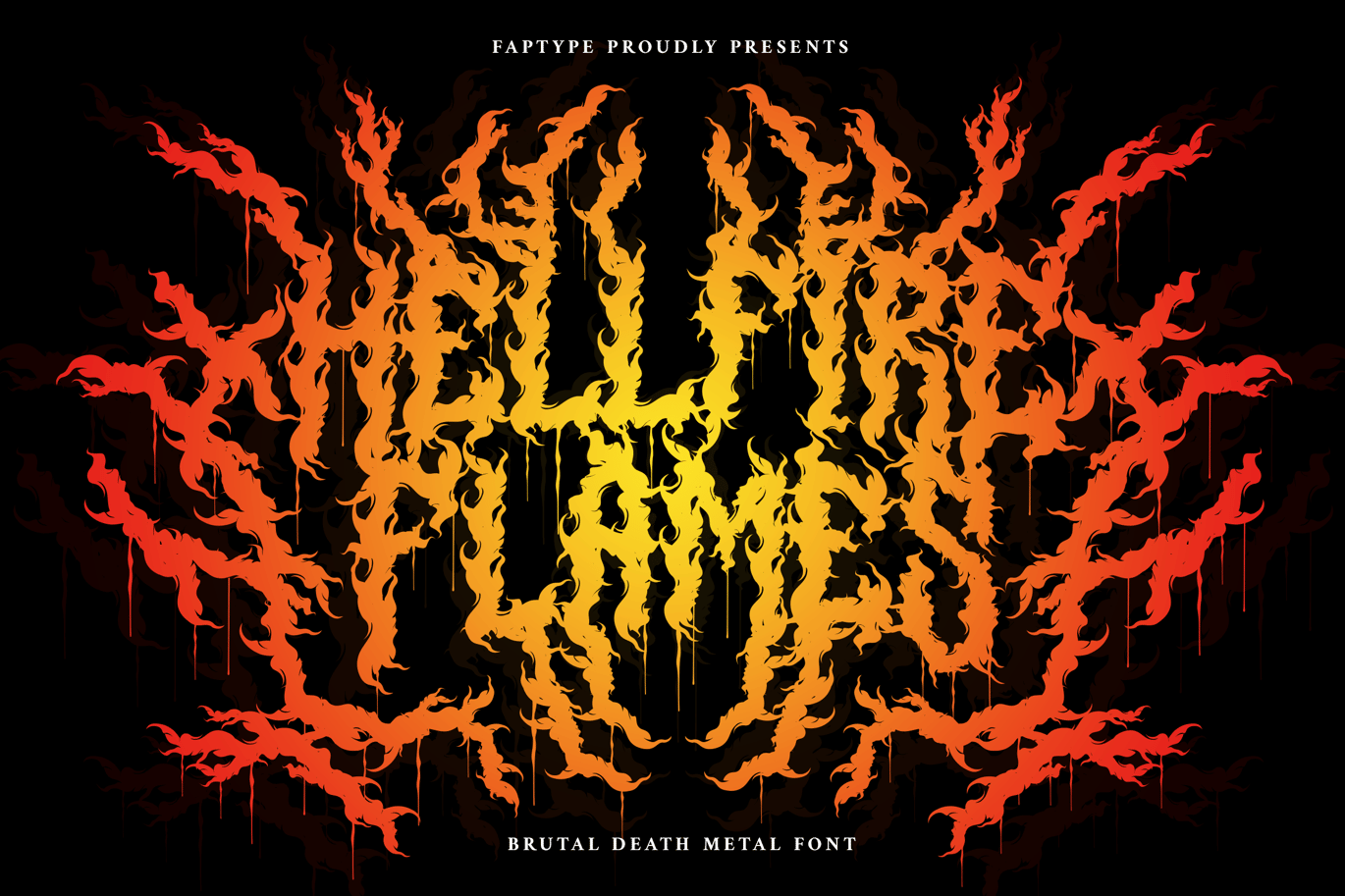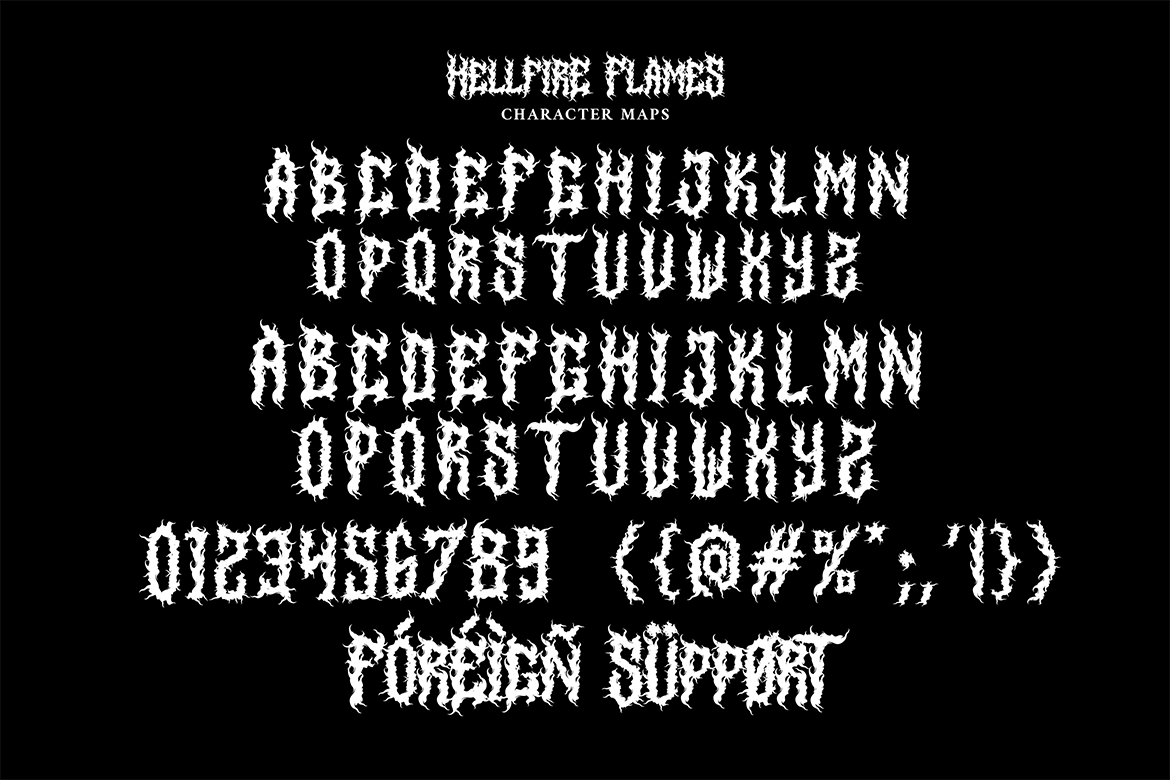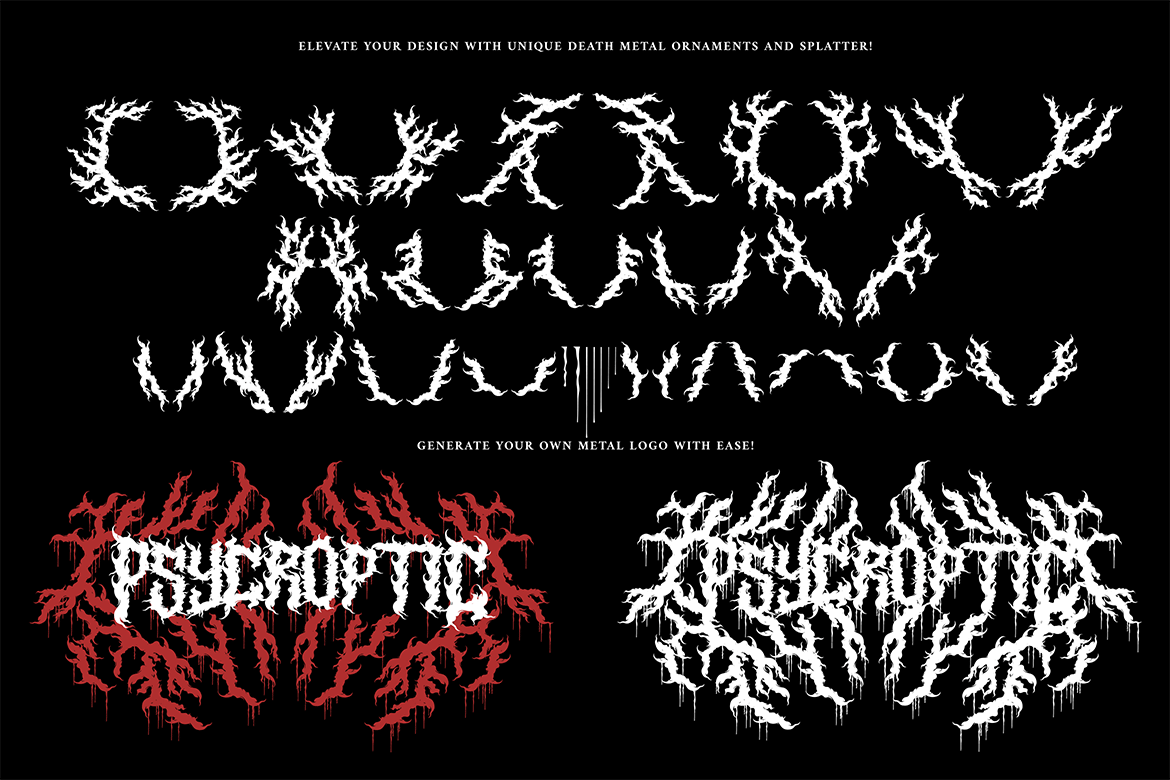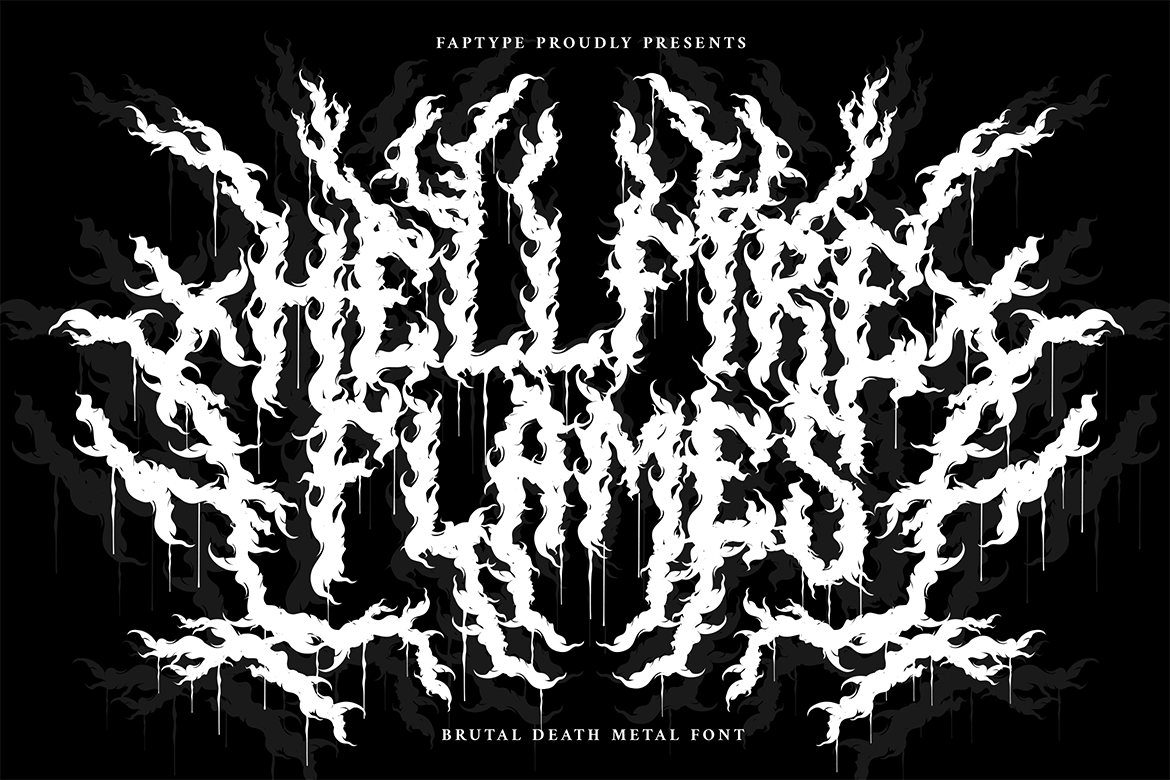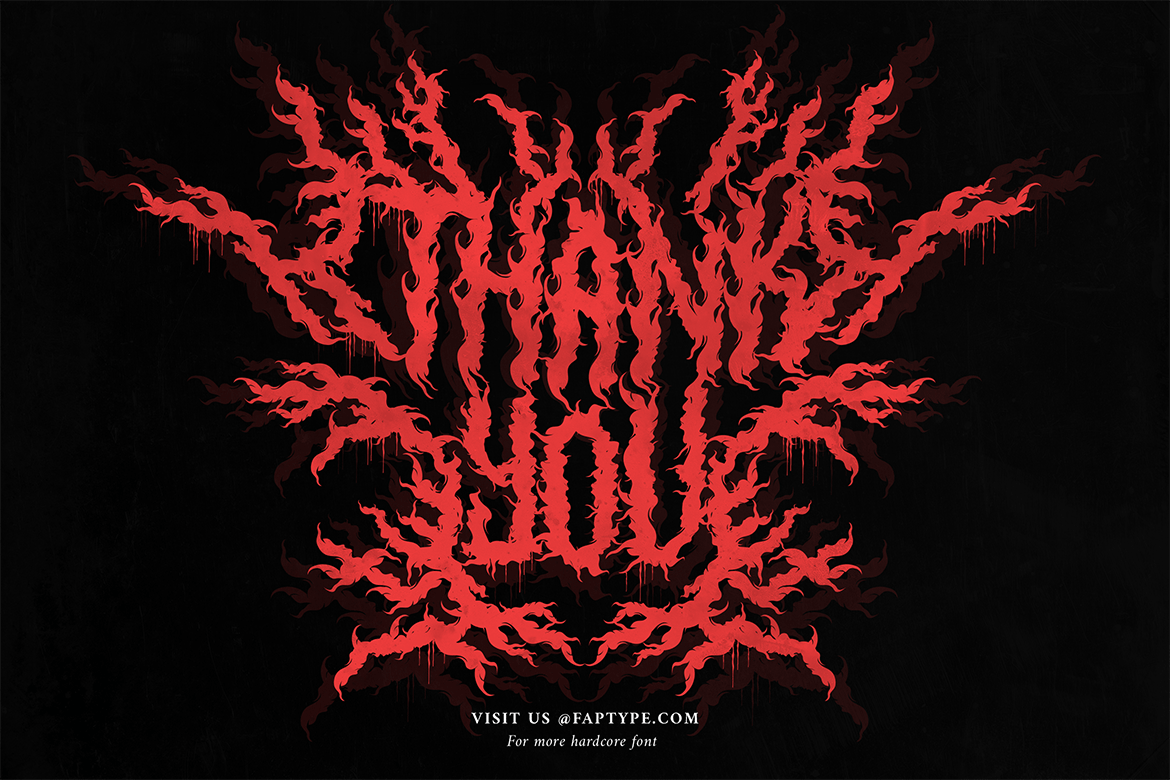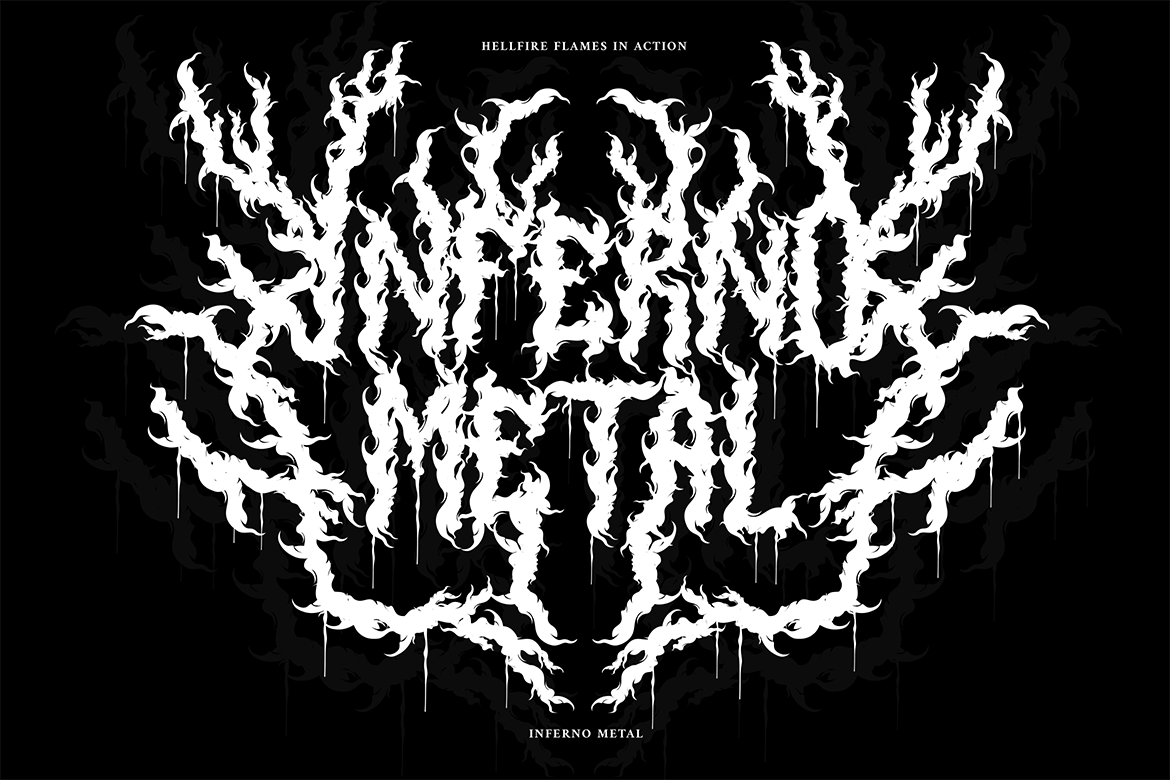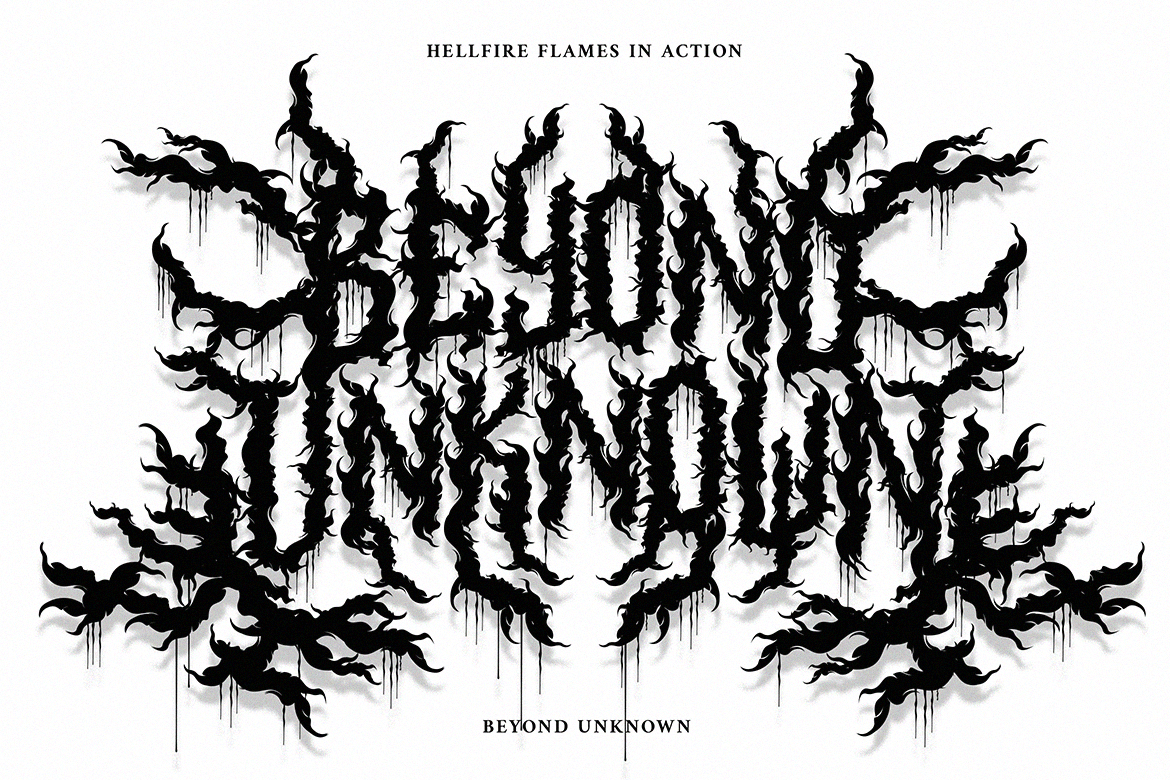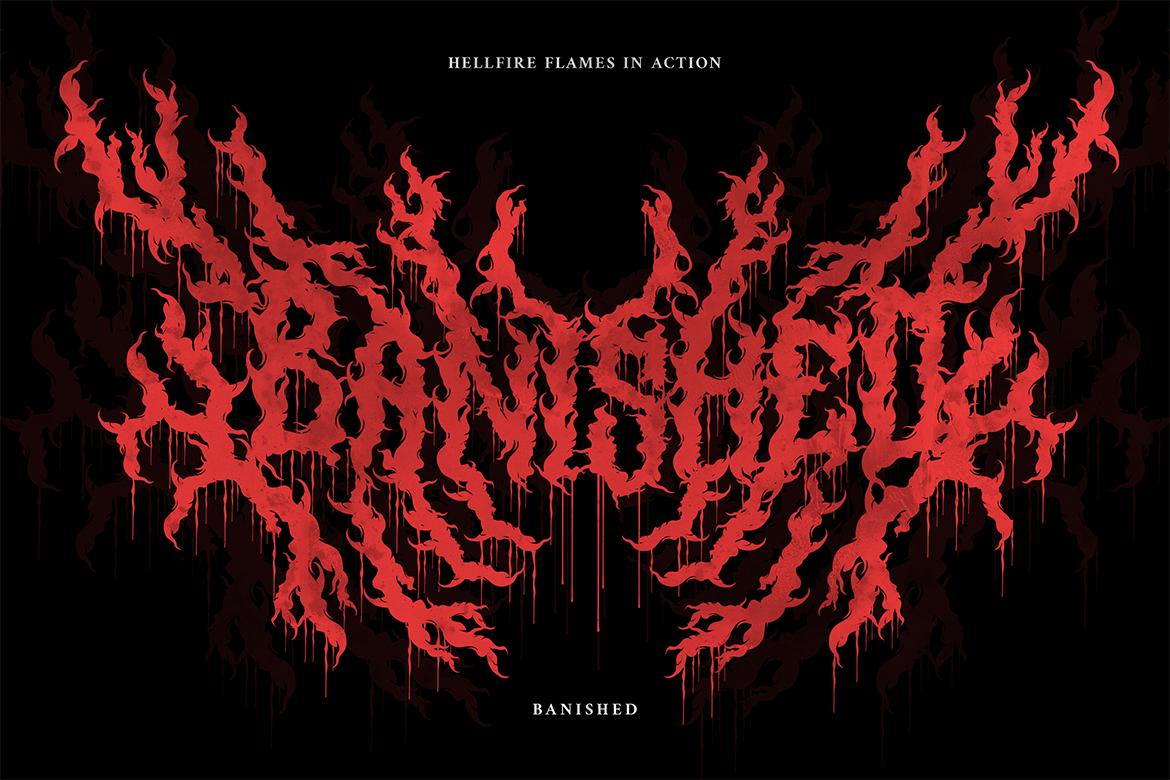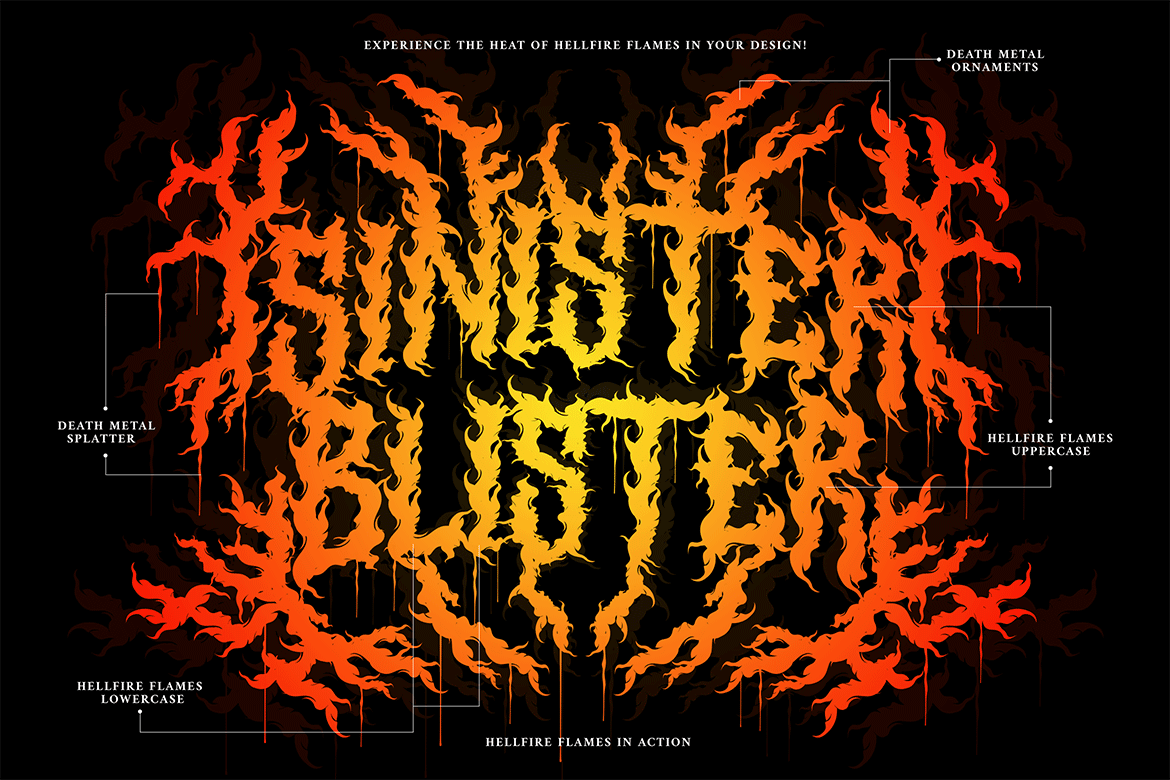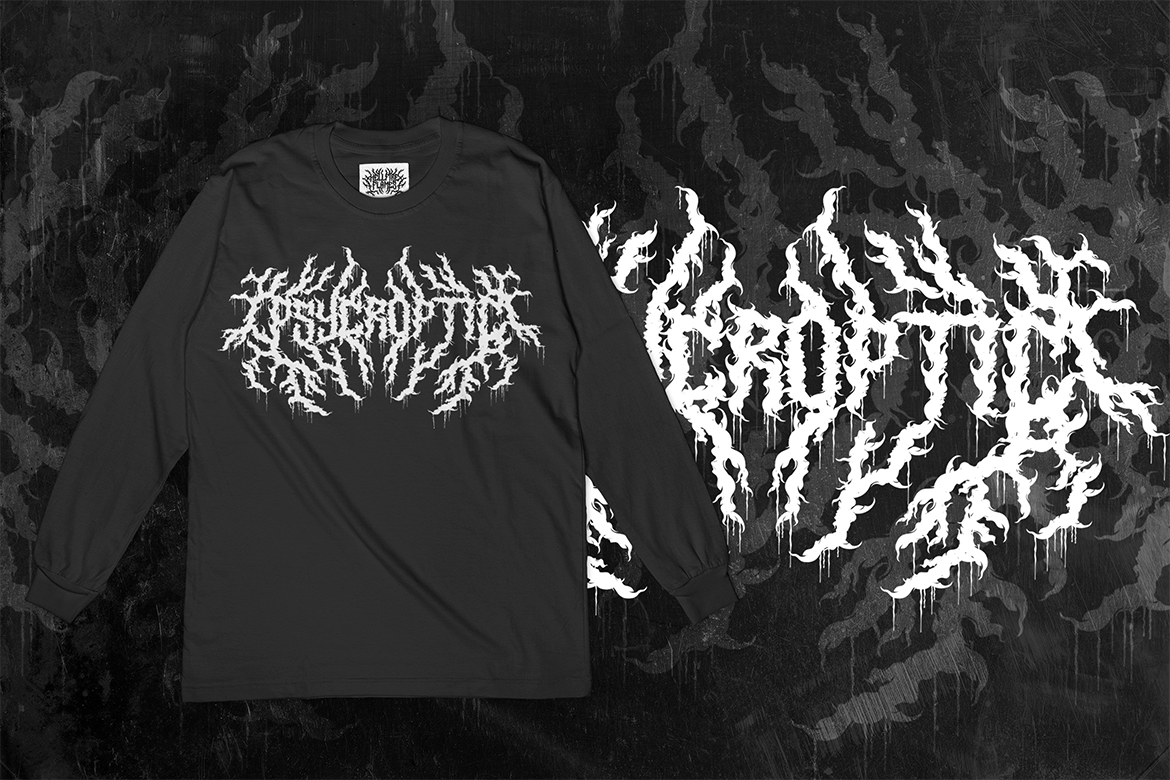
Hellfire Flames | Death Metal Font
Are you ready to bring some dark and edgy vibes to your designs?
Look no further than the Hellfire Flames | death metal font! With its black fire-inspired design and brutal form, this font is perfect for adding a touch of darkness to your work.
Hellfire Flames is a death metal font that embodies the essence of infernal power and brutal energy. The font’s letters take the shape of black flames, with a raw and aggressive design that will leave a lasting impression. The font includes both uppercase and lowercase letters, as well as a range of symbols, numerals, and foreign language support, making it a versatile tool for any project.
Hellfire Flames also offers an array of extraordinary and unique death metal ornaments. These intricate designs are perfect for adding a touch of dark ambiance to your project, and are sure to impress any fans of the genre.
Hellfire Flames is perfect for anyone looking to add a touch of darkness and aggression to their design projects. It’s especially well-suited for projects related to death metal, black metal, gothic, horror, and other genres of heavy music. This font is also great for creating logos, album covers, merchandise, and other graphics that need a raw and intense look. Its unique death metal ornaments make it a great choice for adding an extra level of detail and flair to your designs.
So why settle for boring fonts when you can unleash the power of darkness with the Hellfire Flames? Get ready to create designs that are truly unforgettable and take your work to the next level!
Hellfire Flames features:
A full set of uppercase and lowercase
Numbers and punctuation
Multilingual language support
PUA Encoded Characters
OpenType Features
+238 Total Glyphs
+50 Death Metal Ornaments and Splatter included!